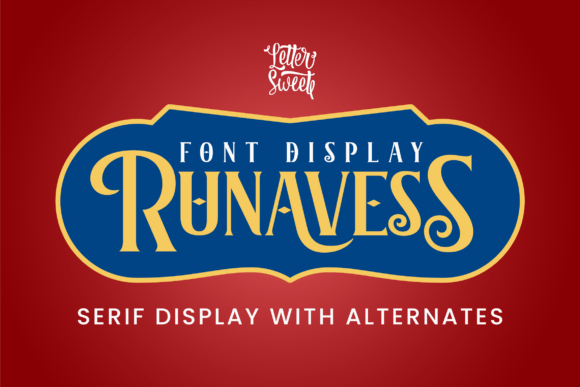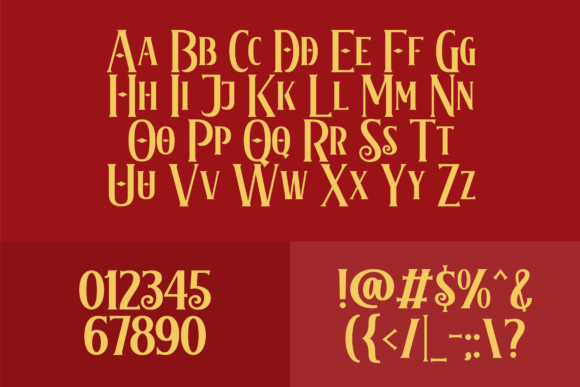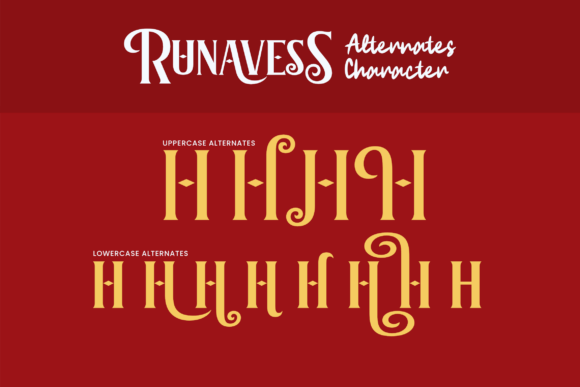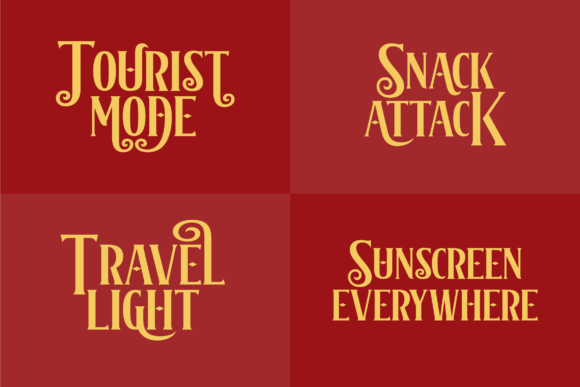
Runavess Font
About the Runavess Font
Get ready to be inspired by Runavess Font, a fresh and dynamic typeface for modern creators. Runavess is a serif display font that blends classic elegance with a bold, modern twist. Designed with intricate details and strong letterforms, this font is perfect for anyone looking to stand out with style.
Equipped with eye-catching alternates, Runavess gives you the creative freedom to craft dynamic, artistic, and sophisticated designs. Ideal for branding, posters, vintage logos, packaging, and editorial projects that need a retro-modern flair.
Make a bold visual statement with Runavess – because every letter is a work of art.
Runavess Font Usage Examples
Runavess Font Example